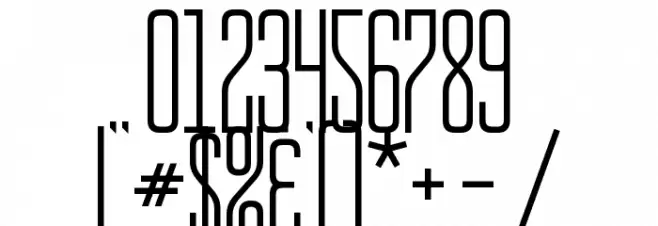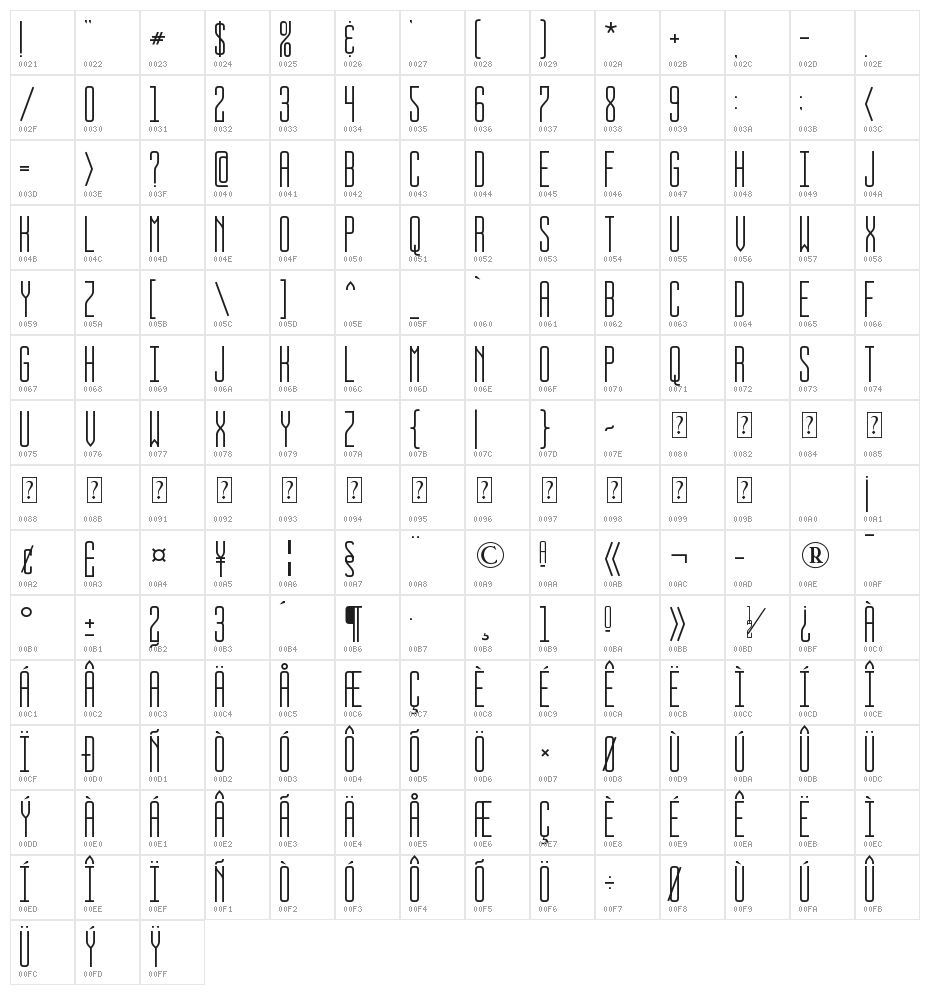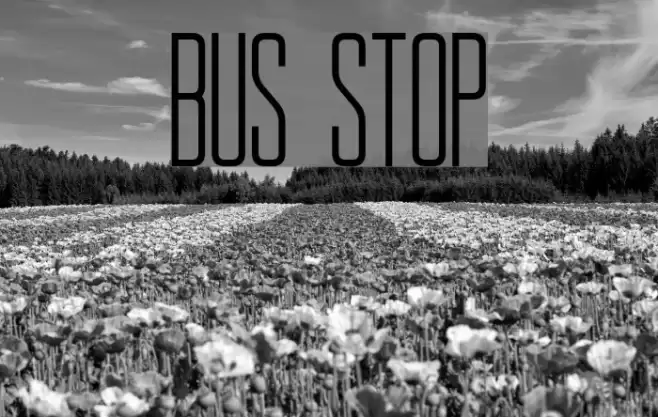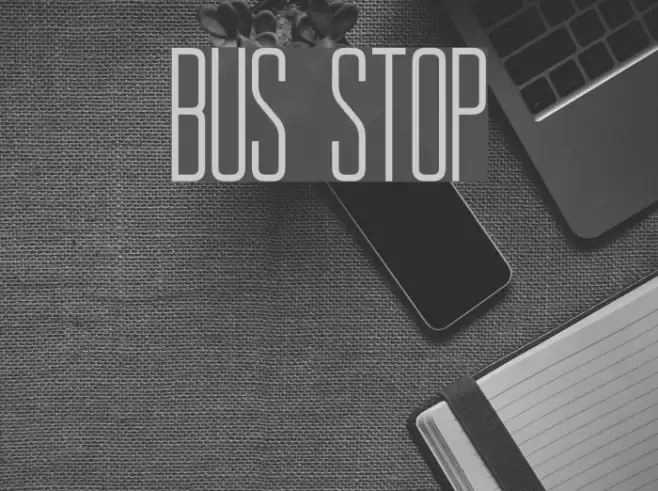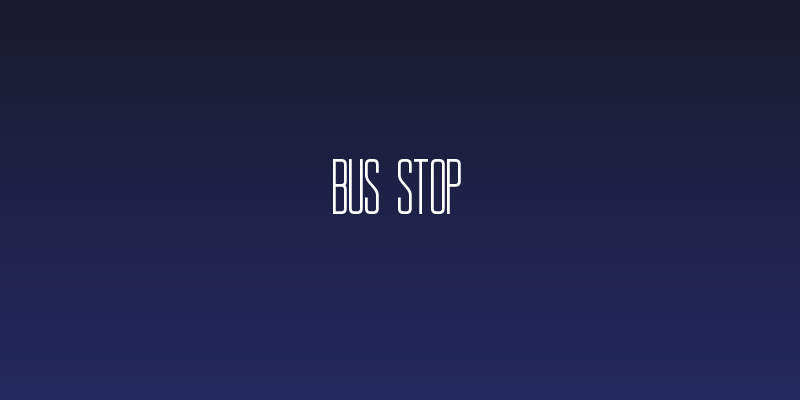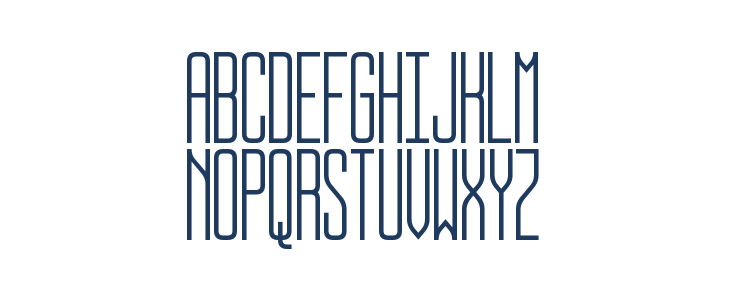
BUS STOP Font
BUS STOP Description
This font features a tall and narrow design with a distinctly modern and geometric aesthetic. The characters are elongated, giving a sleek and sophisticated appearance. The uppercase and lowercase letters maintain a consistent height, creating a uniform look. The numerals and special characters follow the same narrow style, ensuring cohesion across all elements. The clean lines and minimalistic approach make it suitable for contemporary design projects. Its unique structure is eye-catching and ideal for making bold statements.
| Proposed Projects | Ideal for modern branding, posters, and editorial design where a striking and contemporary look is desired. |